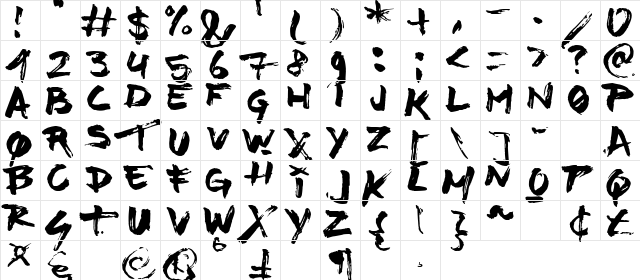
Time Machino Regular
Design Context for Time Machino Typeface
Time Machino is a composed and adaptable typeface that performs quietly and consistently across a wide range of design contexts.